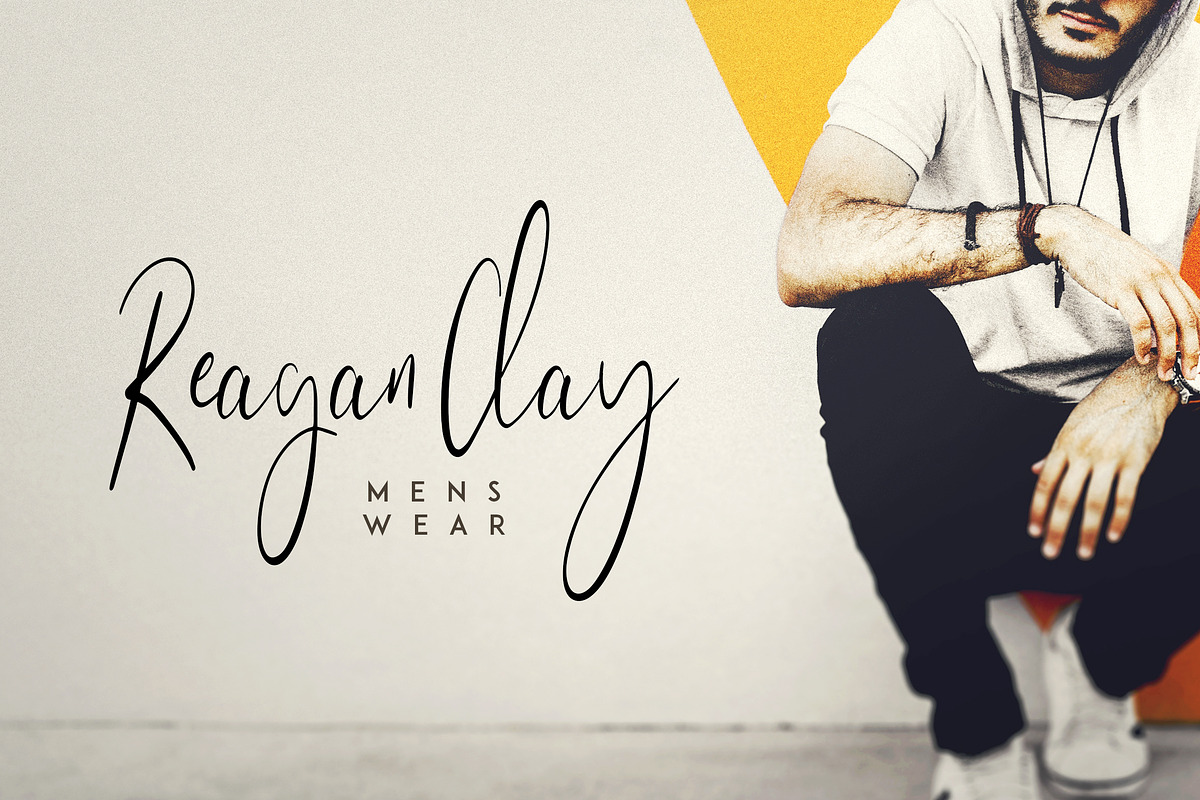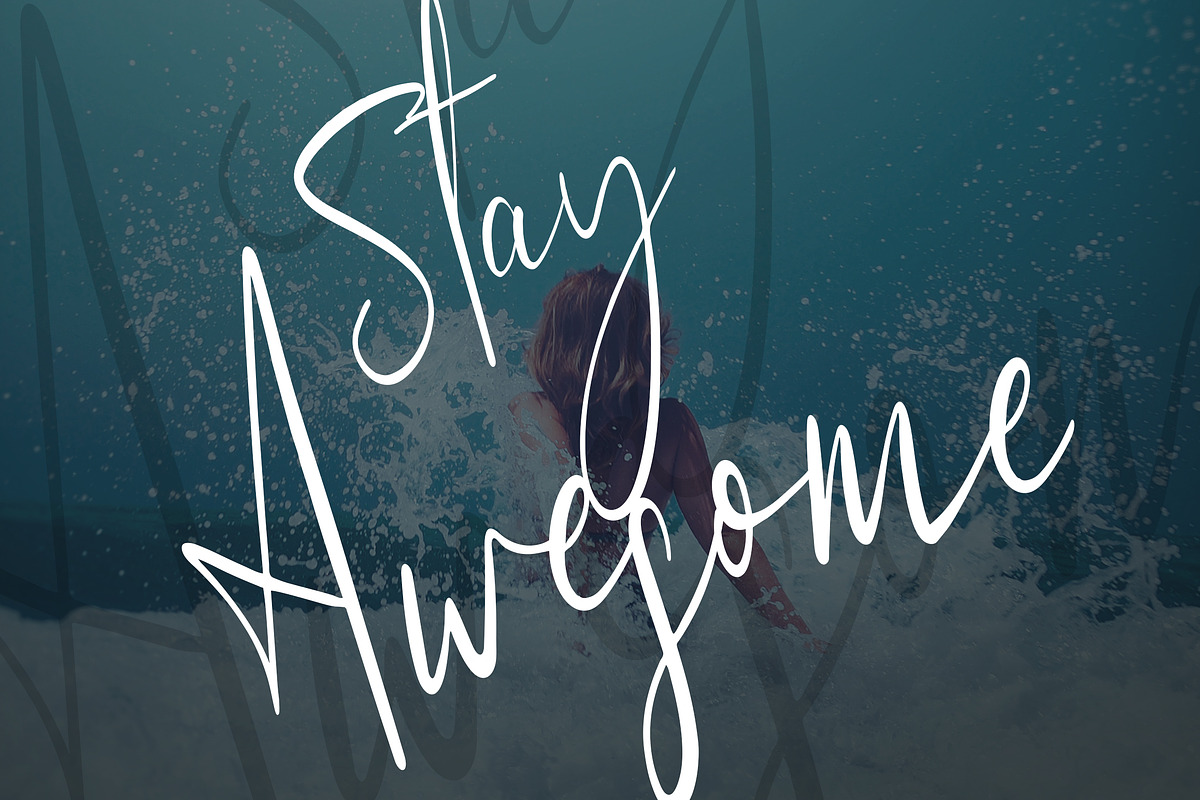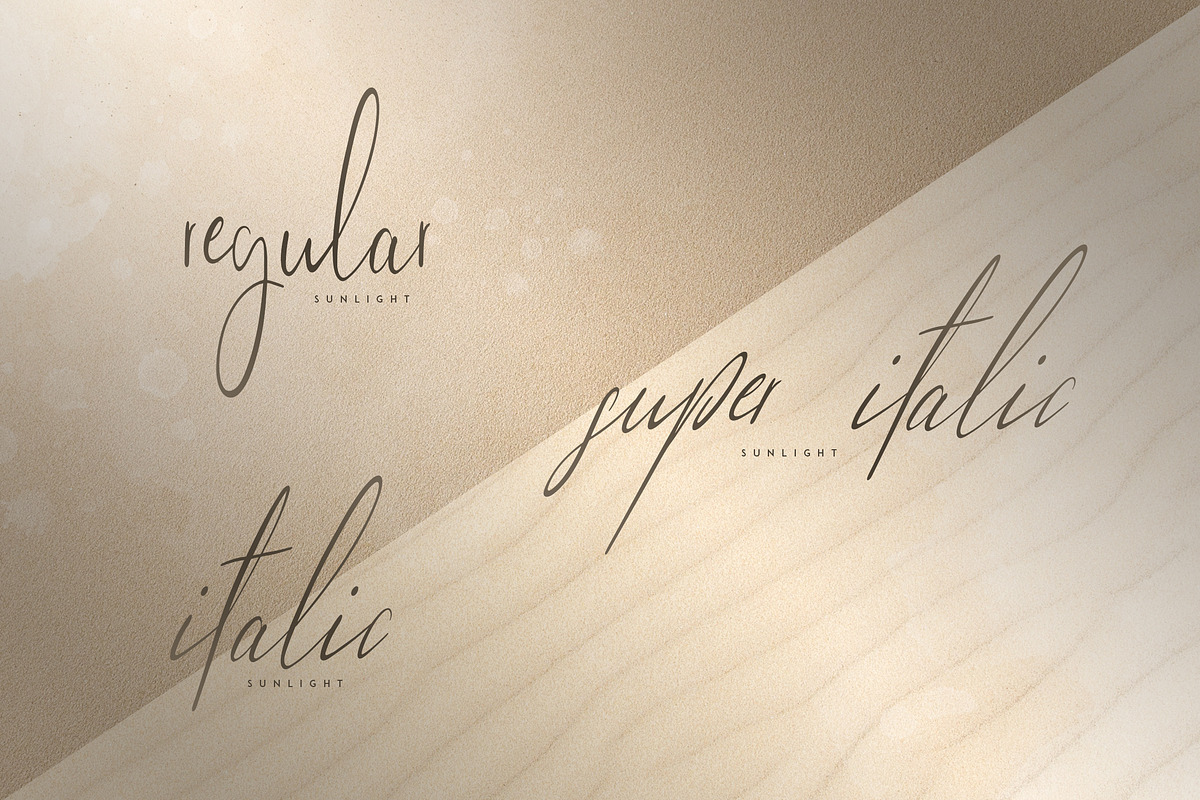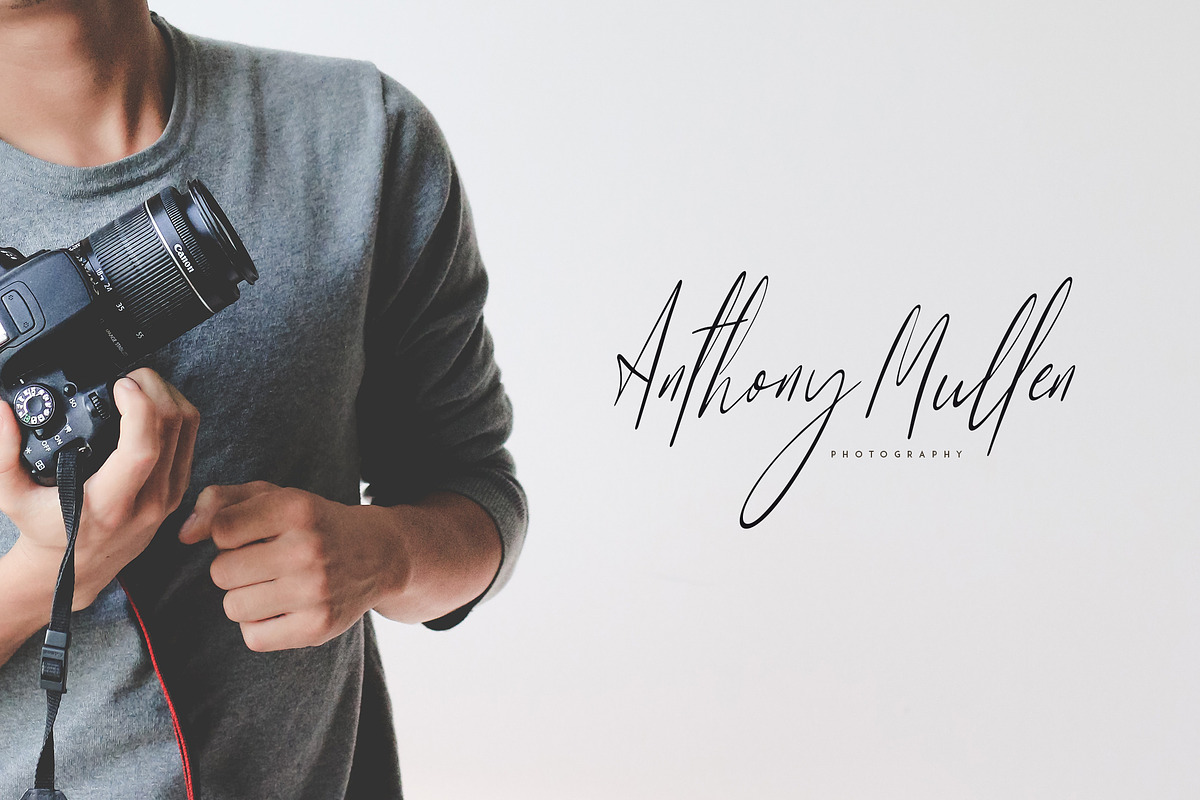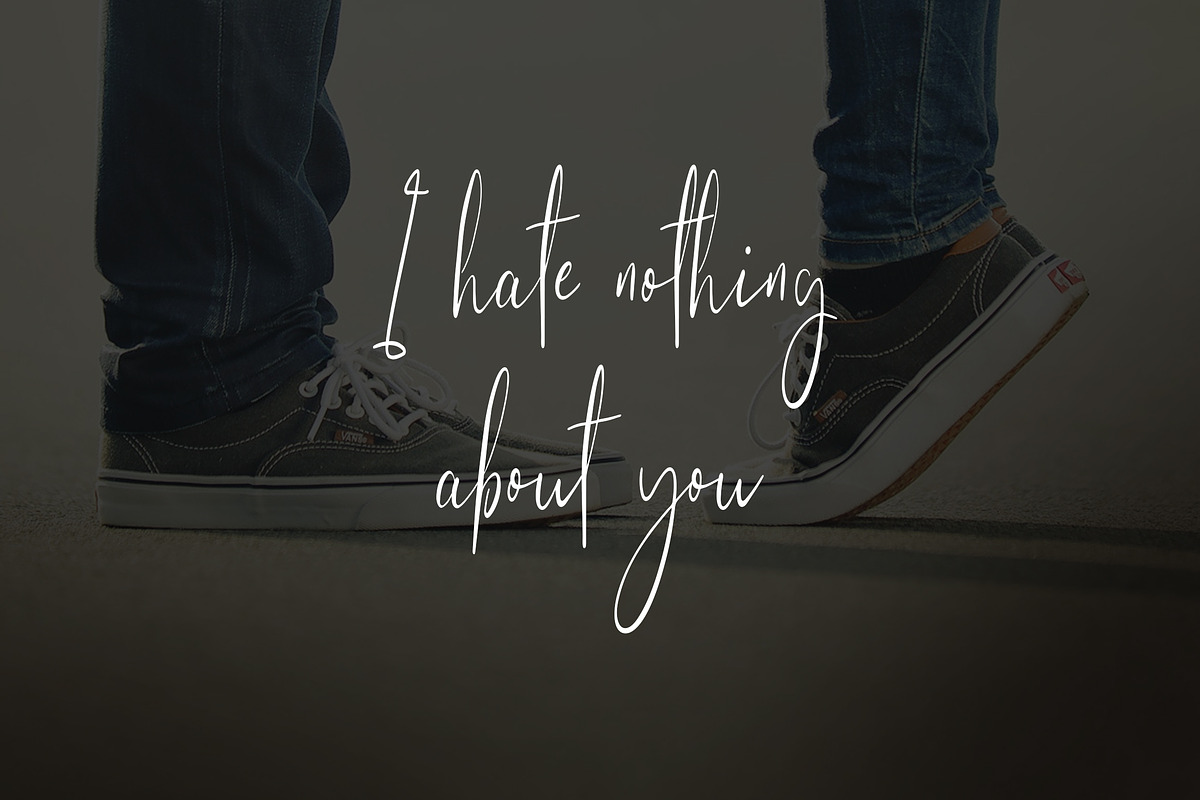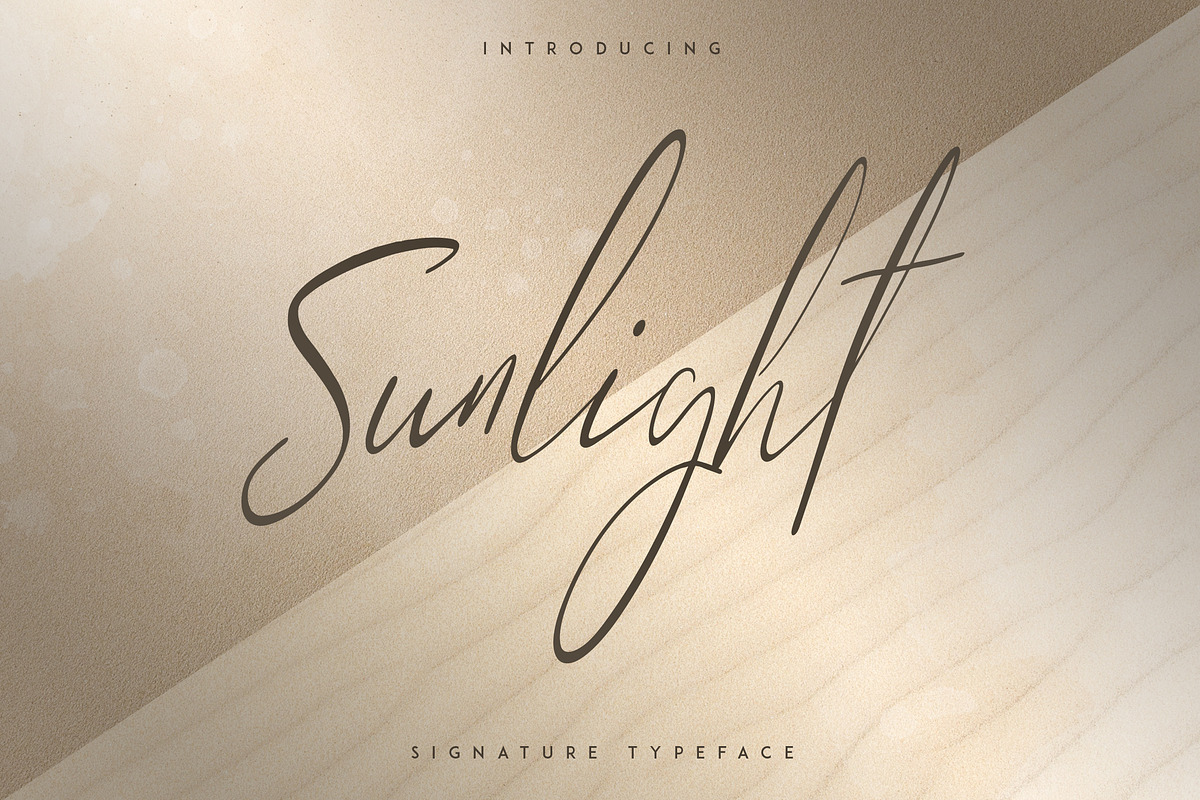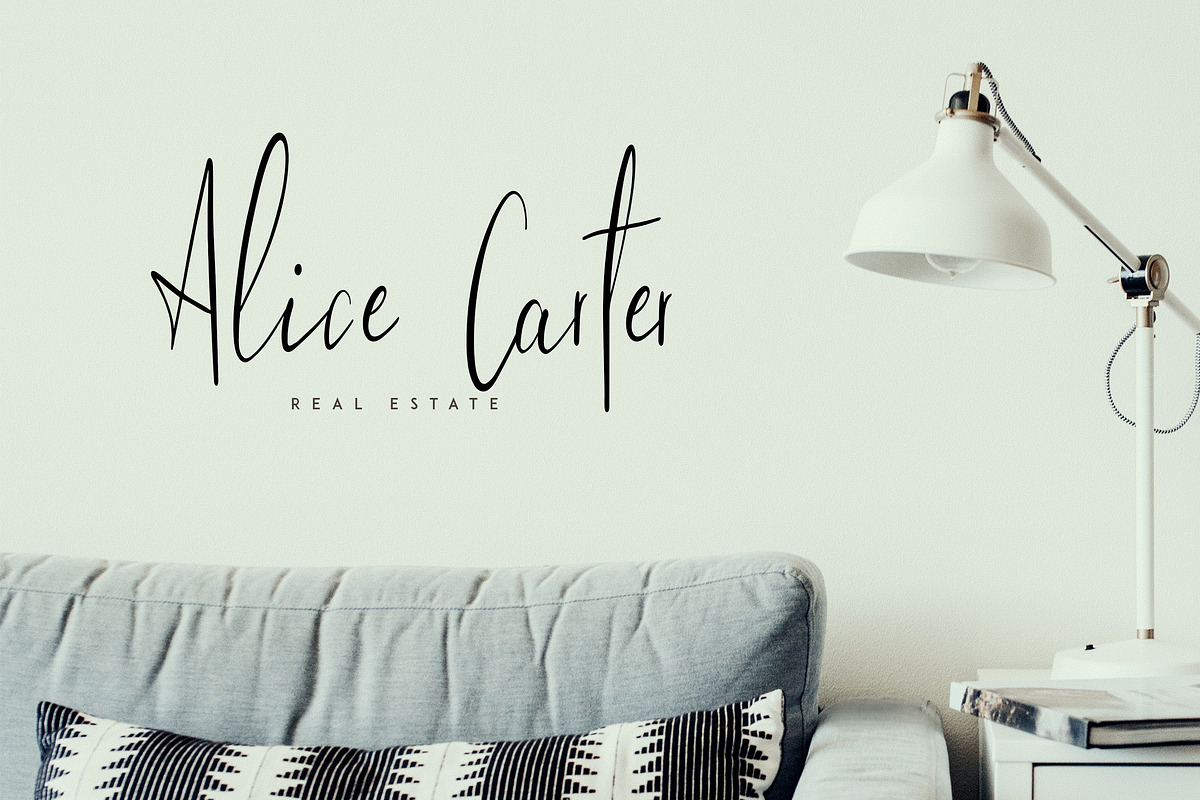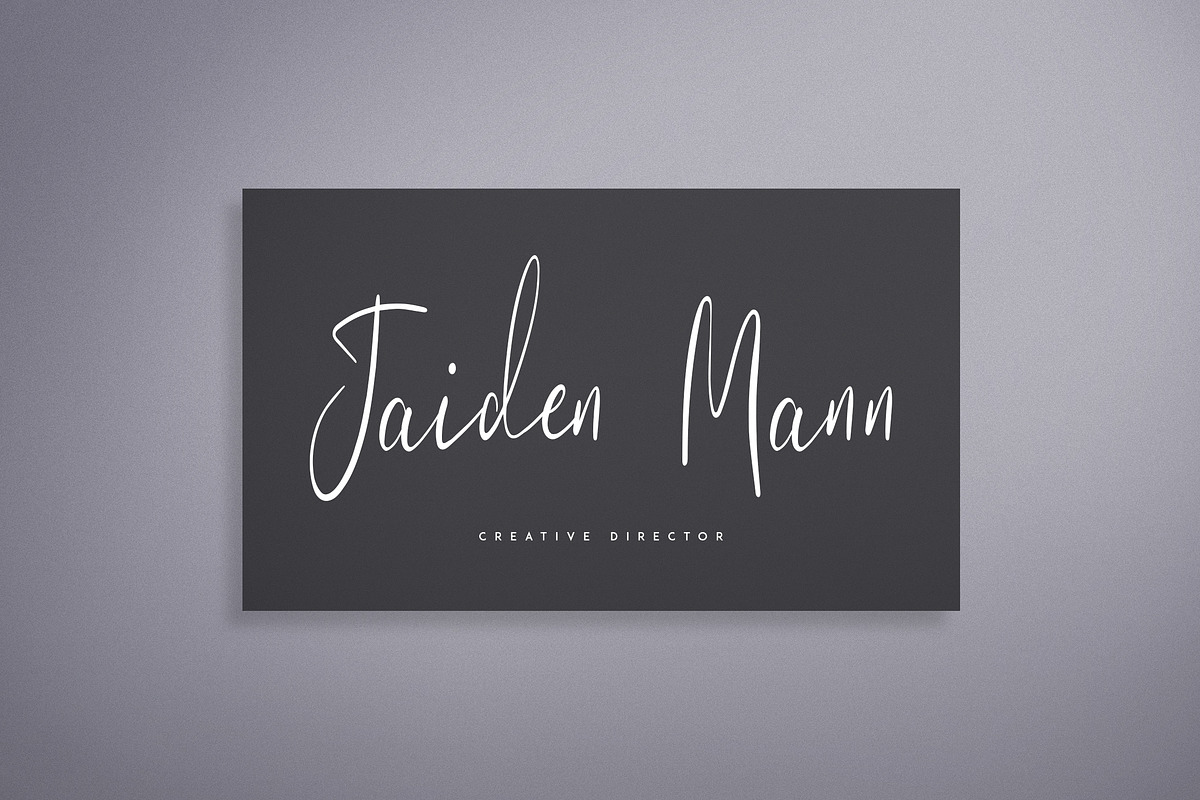
Sunlight - Signature typeface
Sunlight is signature, clean typeface with 3 styles and multilingual support. It's a very versatile font that works great in large and small sizes.
Sunlight is perfect for branding projects, home-ware designs, product packaging, magazine headers - or simply as a stylish text overlay to any background image.
Ligatures - ll, oo, tt, ee